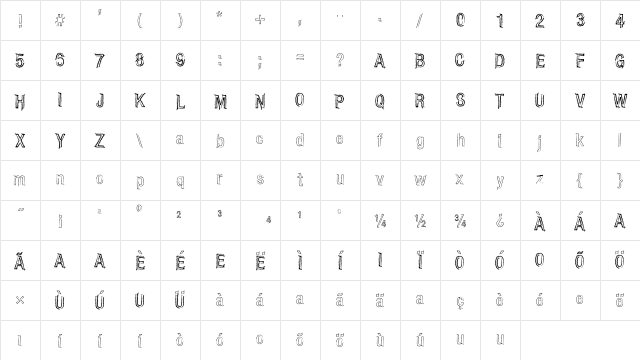
CARBONCILLO PALO Normal
CARBONCILLO PALO Family
Design Context for CARBONCILLO PALO
CARBONCILLO PALO is a composed and adaptable typeface that performs quietly and consistently across a wide range of design contexts.